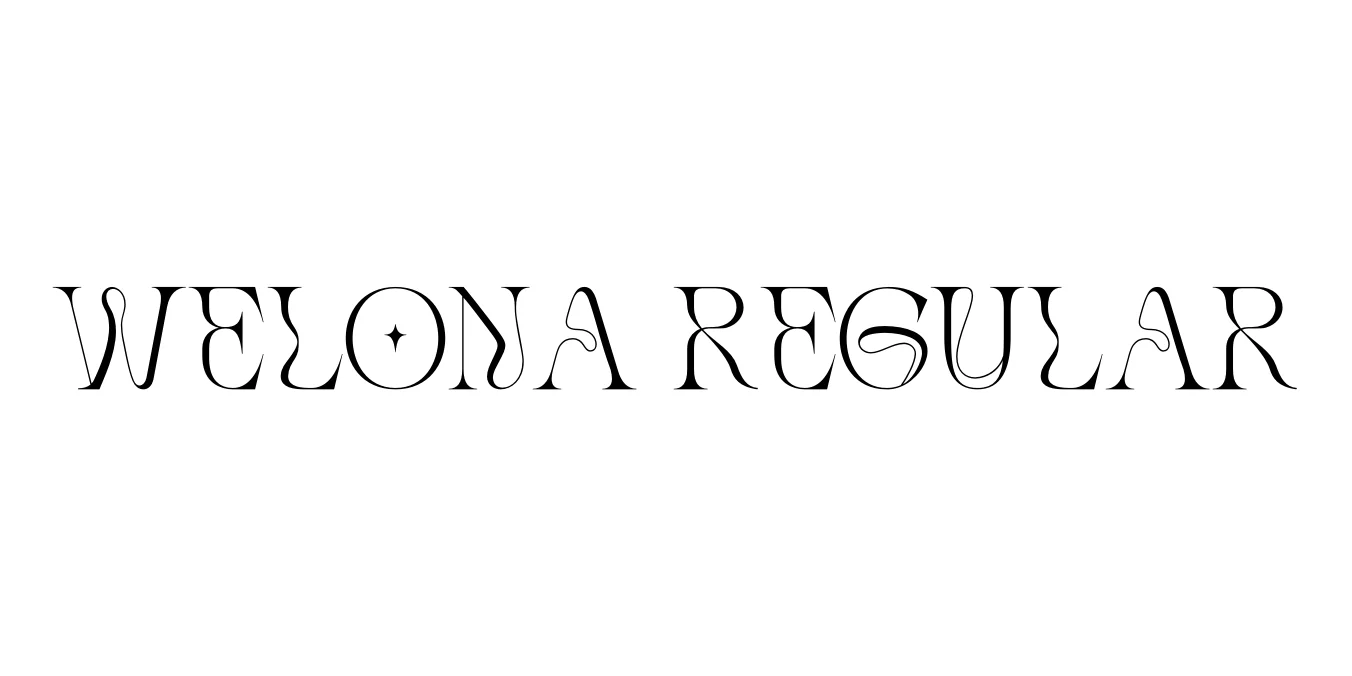
Welona Regular
Designed by Creatype Studio
Welona Regular is a sophisticated and elegant serif typeface crafted by the renowned Creatype Studio. This font is characterized by its high contrast between thick and thin strokes, refined curves, and timeless proportions, making it a standout choice for projects that require a touch of luxury and class. Its design philosophy bridges the gap between traditional serif aesthetics and contemporary fashion-forward styles, ensuring it remains versatile for various creative applications.
Released to meet the demands of modern editorial and branding needs, Welona Regular offers exceptional legibility while maintaining a decorative flair. It is particularly effective for high-end visual identities, magazine mastheads, and premium packaging where a sense of exclusivity and grace is paramount. Whether used in print or digital media, Welona provides a polished look that elevates the overall aesthetic of any composition.
Welona Regular Best Uses
Ideal for creating sophisticated and high-end brand identities for luxury labels.
Perfect for magazine headings, mastheads, and stylish feature articles.
Adds a romantic and formal touch to invitations and event programs.
Excellent for luxury apparel labels, lookbooks, and cosmetic packaging.